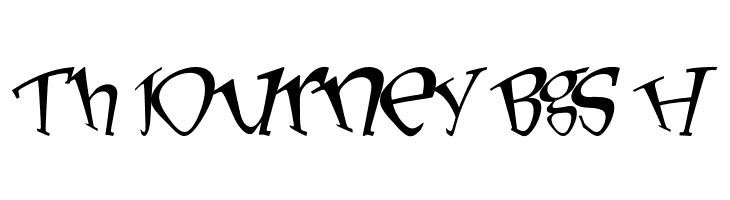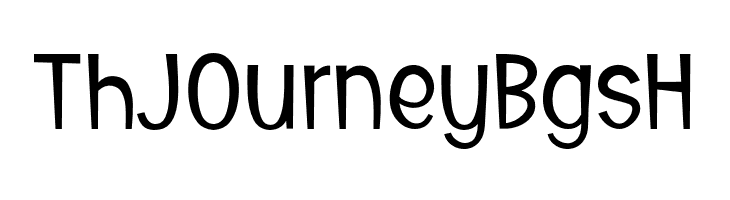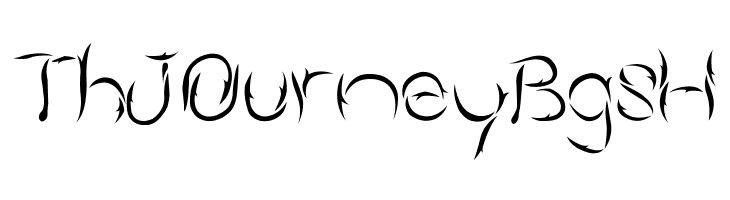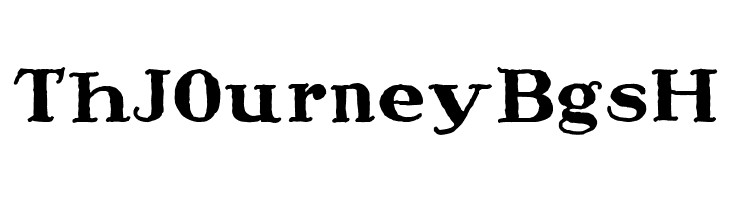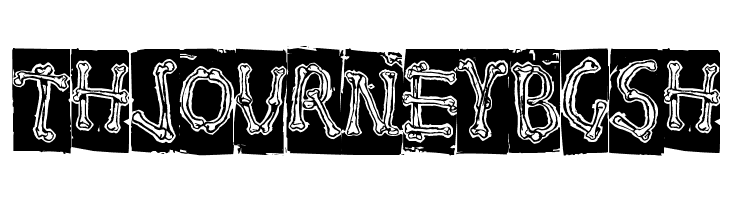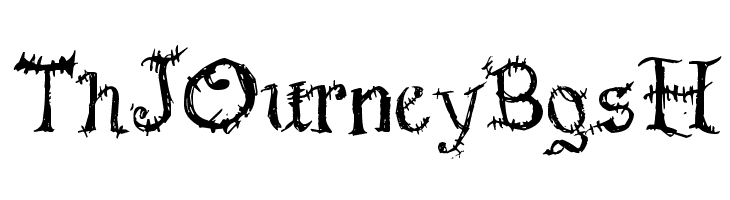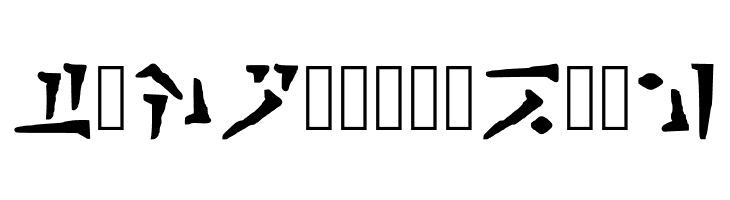
A decorative, distressed font with rough, textured edges and a vintage, grunge aesthetic.
A whimsical, gothic-inspired font with playful curves and sharp edges.
A playful, rounded font with a quirky and approachable style.
A dynamic and artistic font with sharp, thorn-like extensions and flowing forms.
A bold, bone-themed font ideal for spooky or Halloween projects.
An edgy, barbed wire-themed decorative font with bold, jagged characters.
A bold, angular font with a decorative, ancient script-like appearance.